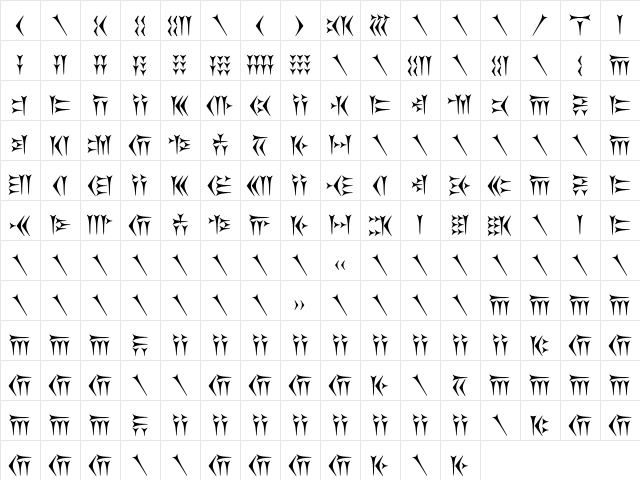
Kakoulookiam Regular
| Foundry | Fereydoun - October |
Design Context for Kakoulookiam Typeface
Kakoulookiam takes a measured approach to typography — its balanced proportions and neutral character make it a reliable workhorse for both digital and print work.